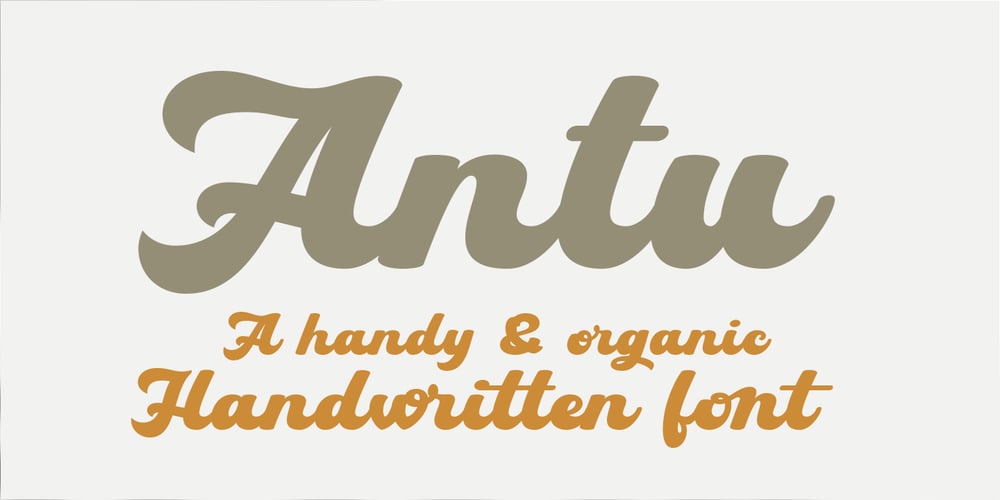
Antu Font Family was designed by Carine de Wandeleer and published by Eurotypo. Antu contains 1 styles and family package options. Antu is a handwriting font, it looks like a real lettering with great visual impact.Take advantage of being able to choose an organic, flexible font with its connection alternatives that makes your text flow natural and better.Antu font includes Open Type features, containing 452 glyphs, a full complement of international characters, standard and contextual alternatives, stylistic sets, and ligatures. All of this makes the text lively and animated, without the monotony of obviously repeating letterforms.Antu font is the perfect choice for titles, logos, posters, packaging, invitations, greeting cards, magazine and book covers, children’s items, fashion, and wherever you want! I hope you enjoy it!